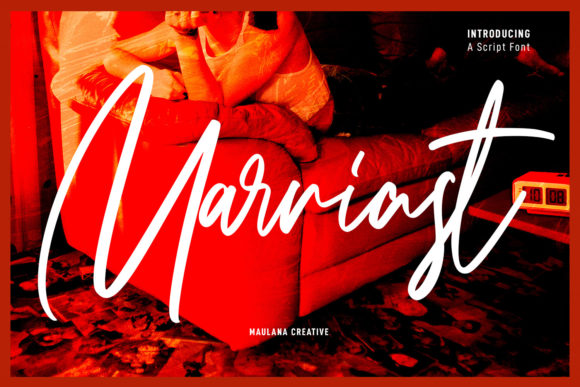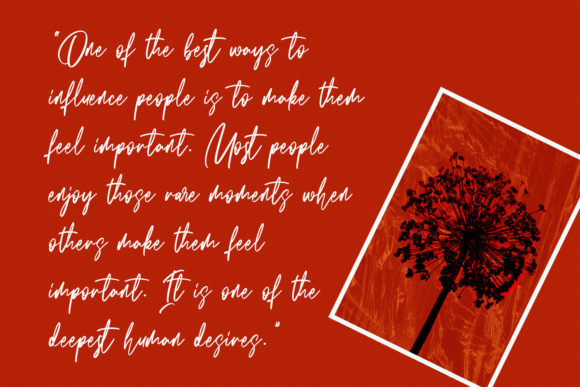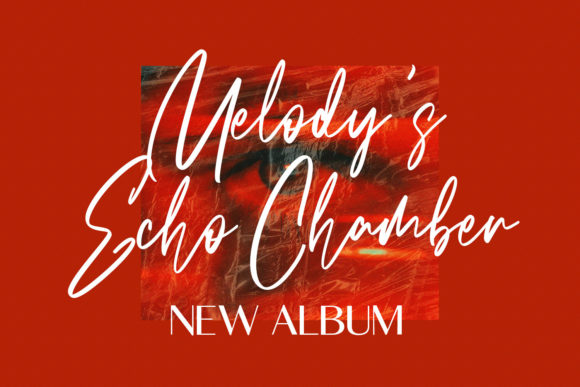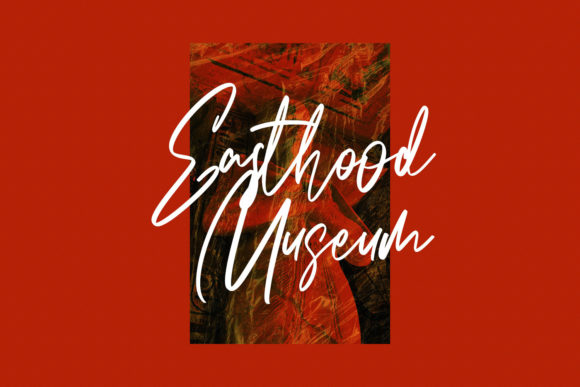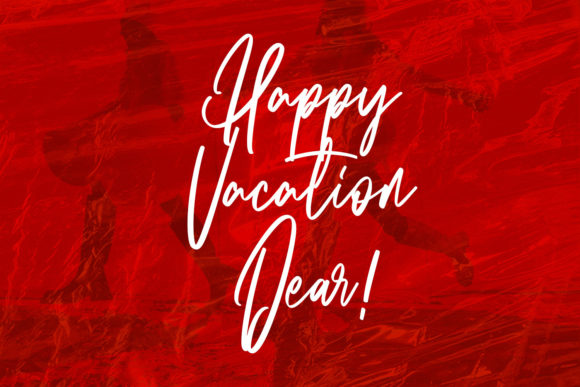
About Marriast Script Font
Marriast is a slanted casual modern script font. With high contrast stroke, fun character with a bit of ligature and alternates to give you extra creative work. This font is great for logo design, Social media, Movie Titles, Books Titles, short text even long text.